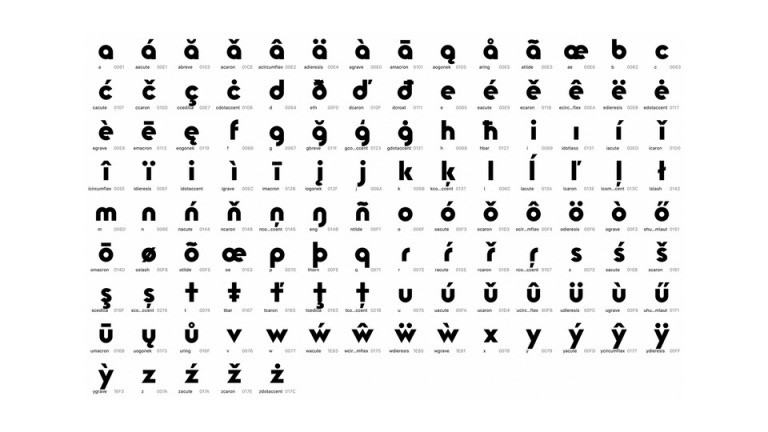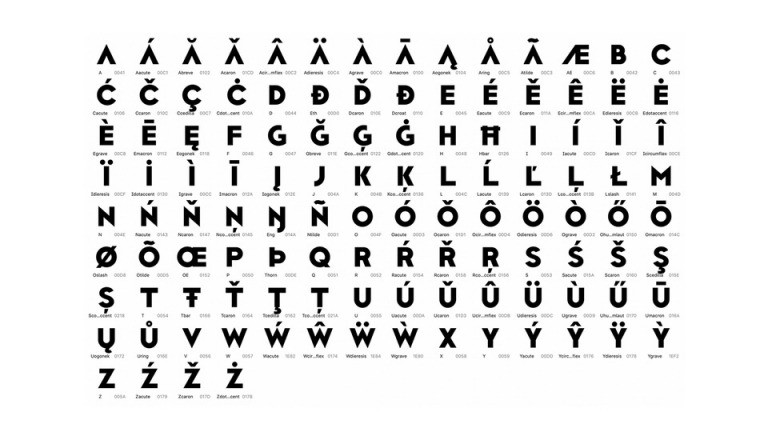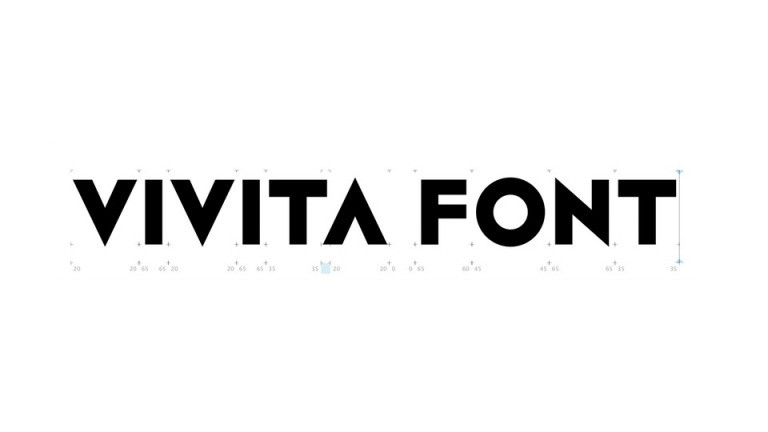
Vivita Font Family
Vivita Sans Serif Font is a condensed sans serif display typeface made up of 4 fonts in a variety of styles and weights. This font is a modern geometric display typeface designed for the brands of VIVITA community and the creativity of children around the world. The letters shape that looks like young children or cool adults includes the essence of VIVITA that does not separate children from adults.